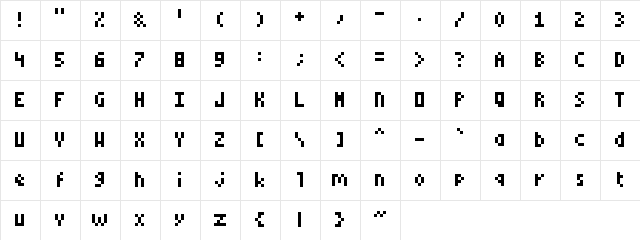
TI-83+ Graph Screen Font Regular
Design Context for TI-83+ Graph Screen Font Typeface
TI-83+ Graph Screen Font is a composed and adaptable typeface that performs quietly and consistently across a wide range of design contexts.